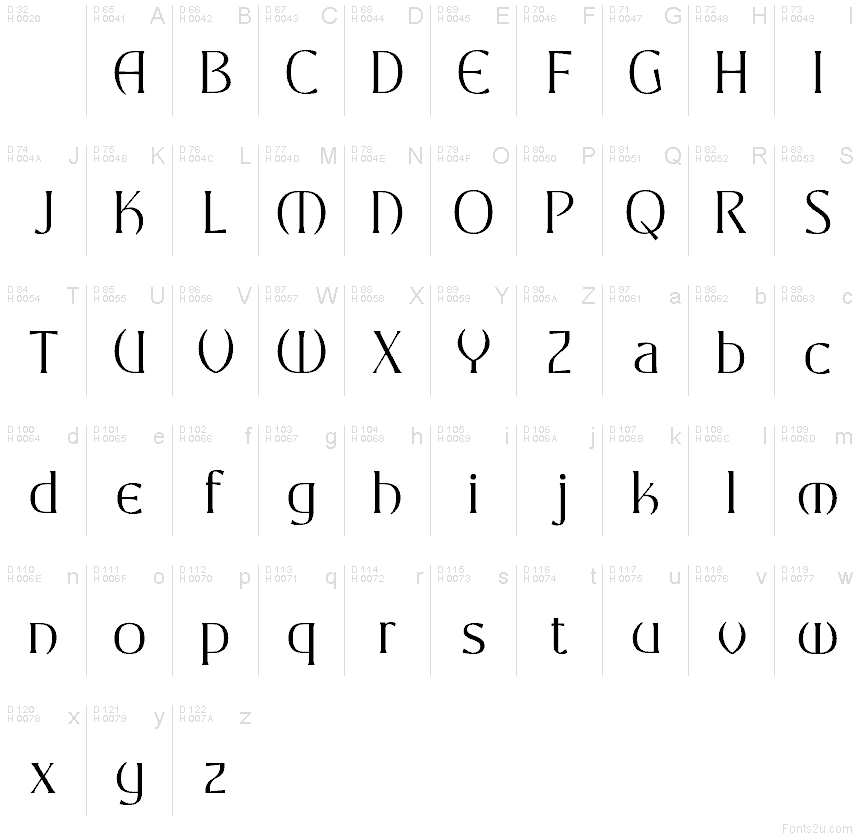
CS Marius Regular Demo
CS Marius font by Craft Supply Co. is a free gothic display font. It stands out with sculpted, stone-cut curves and uncial echoes—rounded bowls that feel almost coin-stamped, contrasted by crisp verticals and chisel-like terminals. The rhythm is steady and spacious, so those dramatic forms breathe instead of crowding, giving headlines a solemn, ceremonial presence without turning stiff.
Using CS Marius, you’ll get instant gravitas for fantasy book covers, whiskey or mead labels, medieval festival posters, game titles, tattoo studio marks, and heritage pub signage. This free font shines large, where its swelling strokes and carved counters read like inky engravings. Pair it with a clean, low-contrast sans for body copy to keep the texture rich up top and crystal-clear below.